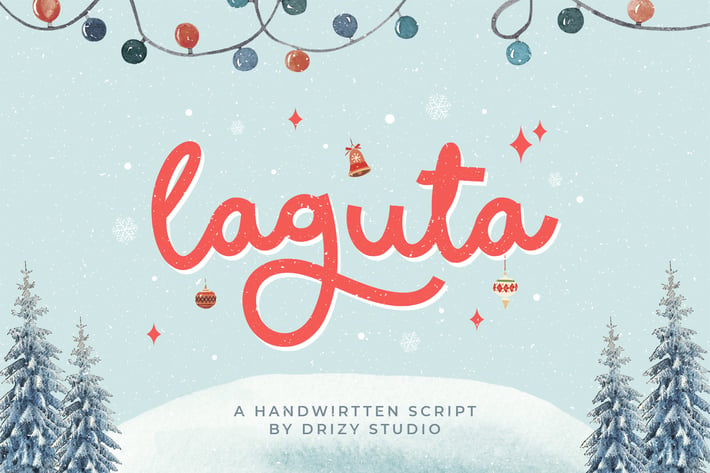
Laguta - Playful Handwritten Font
Laguta is a Playful Handwritten Font from Drizy Studio. Offering all the styles you need for warm, welcoming themes, especially for Christmas projects.
Laguta Script features:
Punctuation & Numbers
Ligatures Stylistic
Alternates